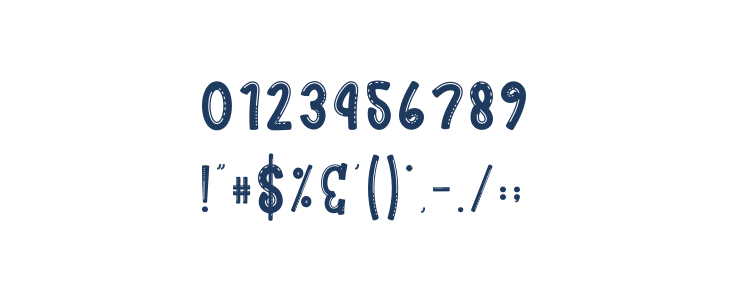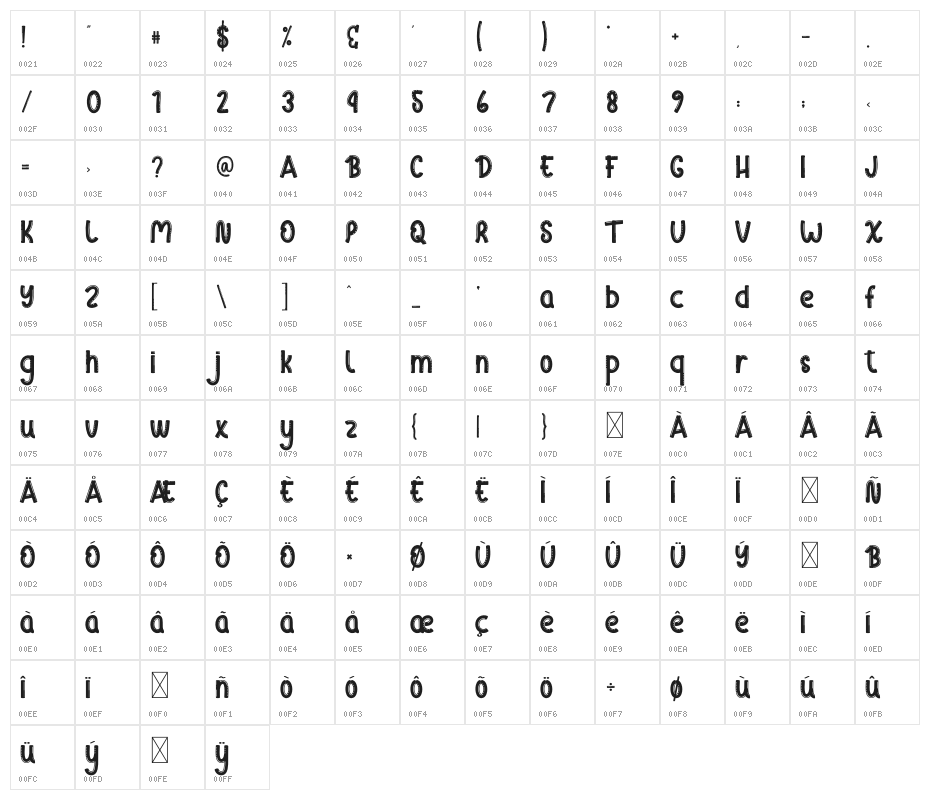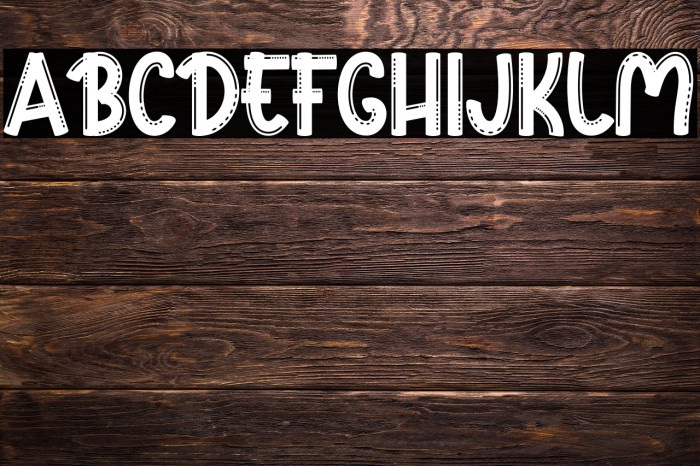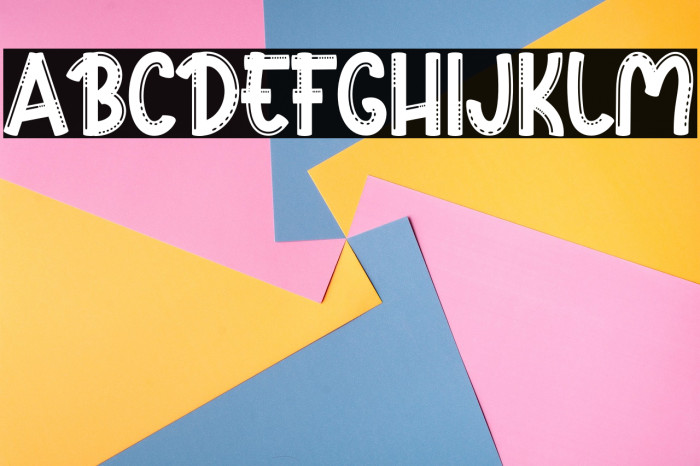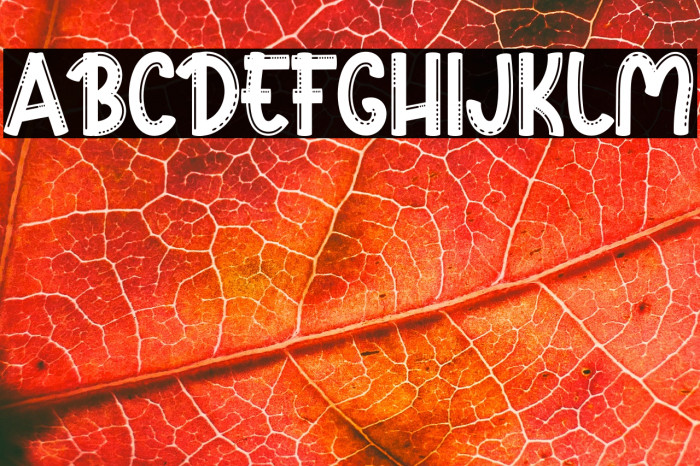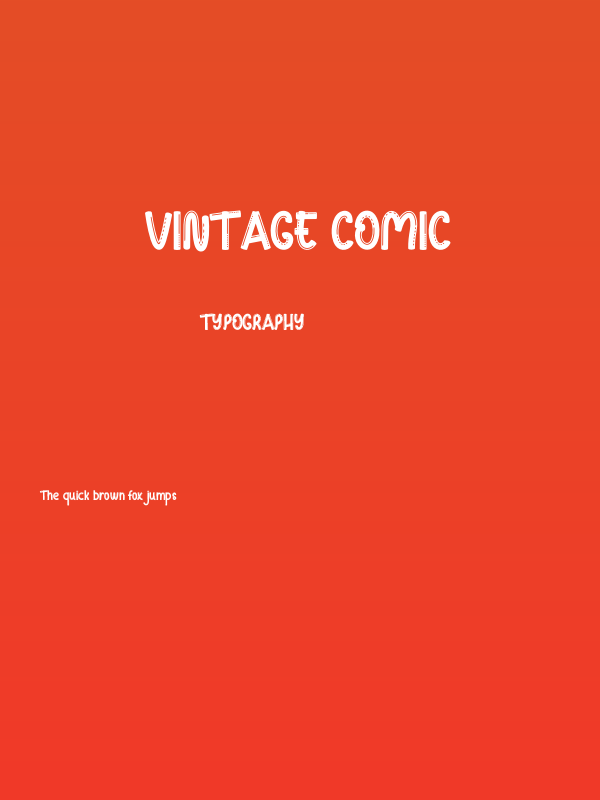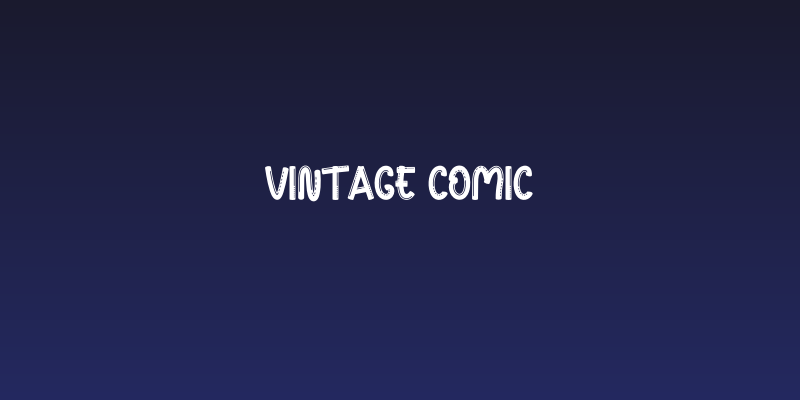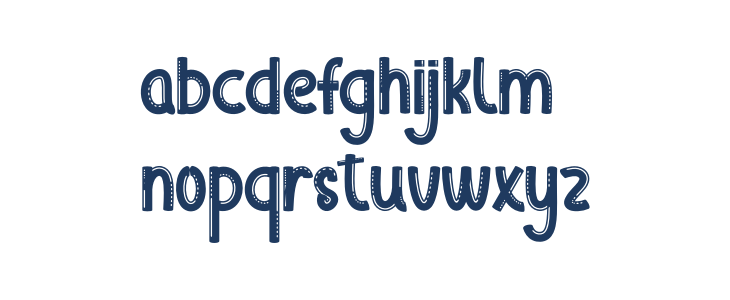
Vintage Comic Font
Vintage Comic Description
This playful and whimsical font features bold, rounded characters with a dotted outline that adds a touch of vintage charm. The uppercase and lowercase letters maintain a consistent style, with smooth curves and a slightly irregular baseline that enhances its comic-like appearance. The numbers and special characters follow the same design, ensuring a cohesive look across all text elements. Its unique style is reminiscent of classic comic book lettering, making it ideal for projects that require a fun and engaging visual element.
| Overall Style | Vintage, Comic |
| Proposed Projects | Ideal for comic books, children's books, playful branding, posters, and greeting cards. |